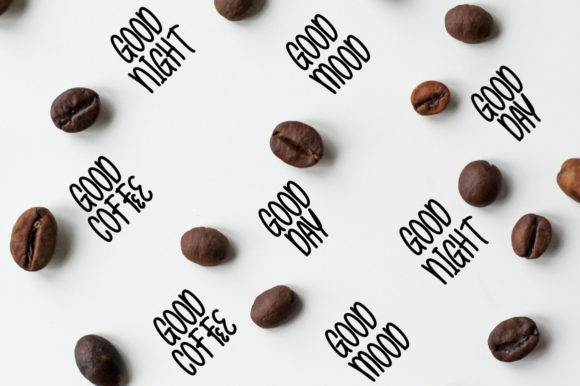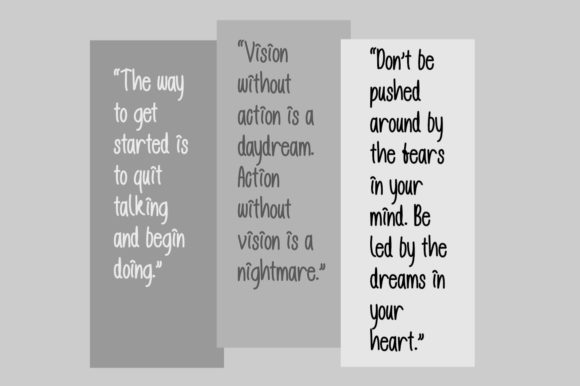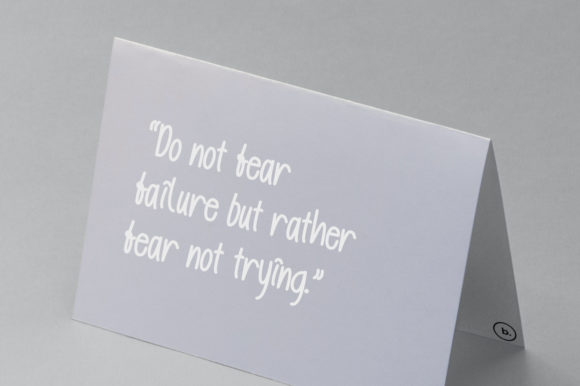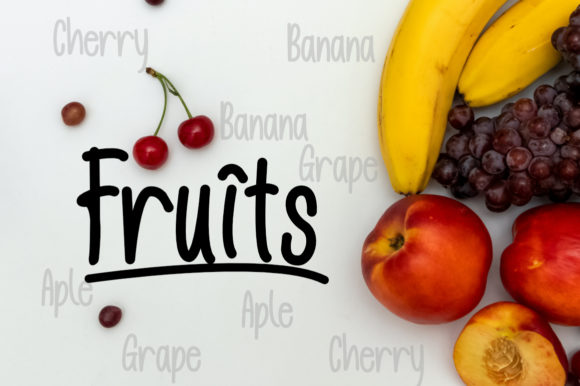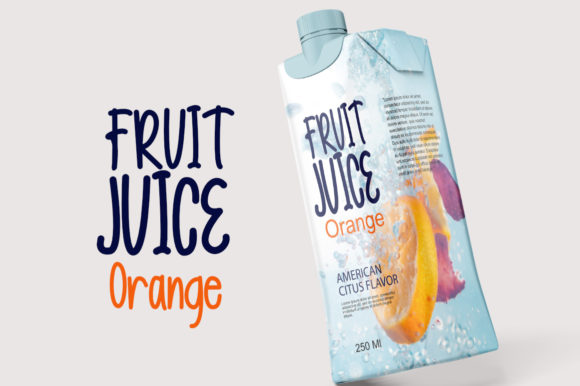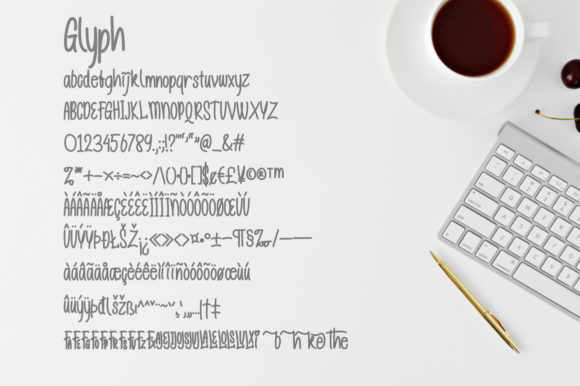
Gislake Font: Elevate Your Designs with a Unique and Versatile Display Font
Are you tired of using the same old fonts in your designs? Look no further than the Gislake Font, a stunning display font that is sure to take your creations to the next level. With its incredibly stylish look and versatility, Gislake is the perfect addition to any designer’s toolkit.
What Makes Gislake Font So Special?
Gislake is a unique and interesting display font that is designed to make a statement. Its stylish and elegant appearance makes it perfect for a wide range of design projects, from luxury branding and advertising to packaging and digital media. Whether you’re a professional designer or a crafty DIY enthusiast, Gislake is sure to inspire your creativity and help you create spectacular designs.
One of the standout features of Gislake Font is its incredible versatility. This font is designed to fit a wide pool of designs, making it perfect for use in a variety of contexts. Whether you’re creating a bold and dramatic headline or a more subtle and sophisticated body text, Gislake is up to the task. Its versatility is thanks in part to its clean and elegant design, which allows it to work seamlessly with a wide range of design styles.
PUA Encoding: Making it Easy to Access Glyphs and Swashes
Gislake Font is PUA (Private Use Area) encoded, which means that you can access all of the glyphs and swashes with ease. This makes it simple to customize your designs and add unique touches that set your work apart from the crowd. With PUA encoding, you can easily access alternative characters, ligatures, and other special features that will take your designs to the next level.
Gislake Font is a must-have for designers and crafters who are looking to elevate their designs and create something truly special. Whether you’re working on a commercial project or a personal craft project, Gislake is the perfect choice. Its stylish and versatile design makes it perfect for use in a wide range of applications, from digital media and advertising to packaging and print design.
Use Gislake Font in Your Designs
So why choose Gislake Font for your next design project? Here are just a few reasons why Gislake is a great choice:
- Unique and stylish design: Gislake has a one-of-a-kind design that is sure to make your designs stand out from the crowd.
- Incredibly versatile: Gislake can be used in a wide range of design contexts, from bold headlines to subtle body text.
- PUA encoded: Easily access all of the glyphs and swashes you need to customize your designs.
- Perfect for designers and crafters: Gislake is a must-have for anyone who wants to create high-quality designs that are sure to impress.
Get Ready to Create Spectacular Designs
In conclusion, Gislake Font is a unique and versatile display font that is perfect for designers and crafters who want to create high-quality designs. With its stylish and elegant appearance, PUA encoding, and incredible versatility, Gislake is a must-have for anyone who wants to elevate their designs and create something truly special. So why wait? Download Gislake Font today and start creating spectacular designs that will leave a lasting impression!